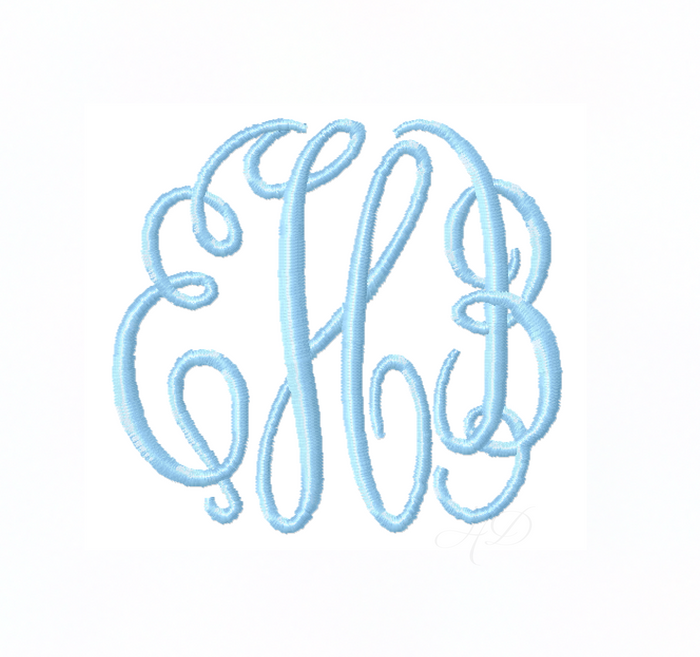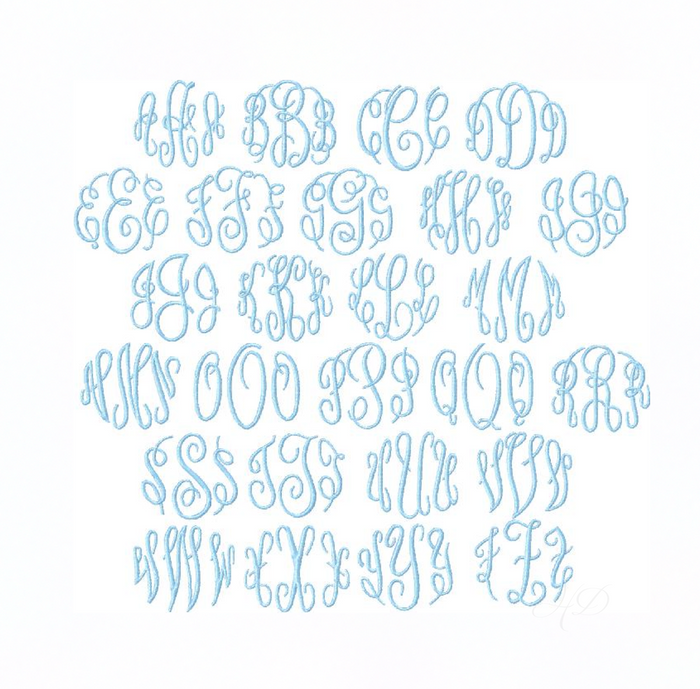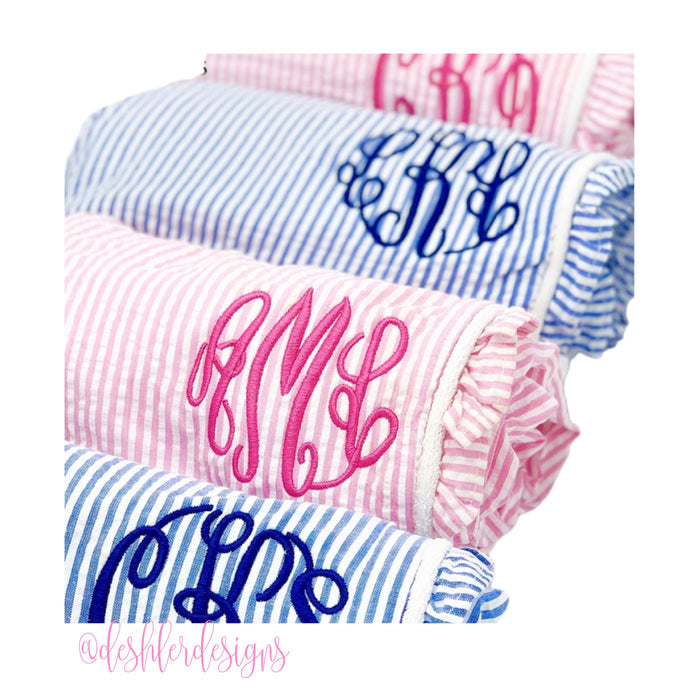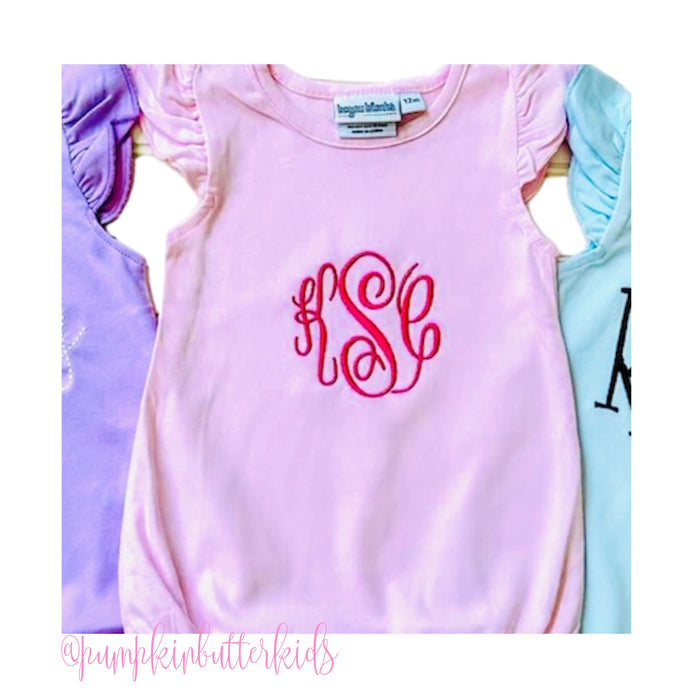
4x4 Satin Master Circle Font Package
Unleash your creativity with the 4x4 Satin Master Circle Font Package. This versatile collection of stunning three-letter monogram fonts is expertly designed for satin stitch embroidery. Ideal for personalizing projects, the package offers sizes of 2", 2.5", 3", and 3.5" to suit various crafting needs. Compatible with popular file formats including PES, DST, VIP, VP3, HUS, EXP, JEF, XXX, EMB, and BX, it's designed for use with a wide array of embroidery machines.